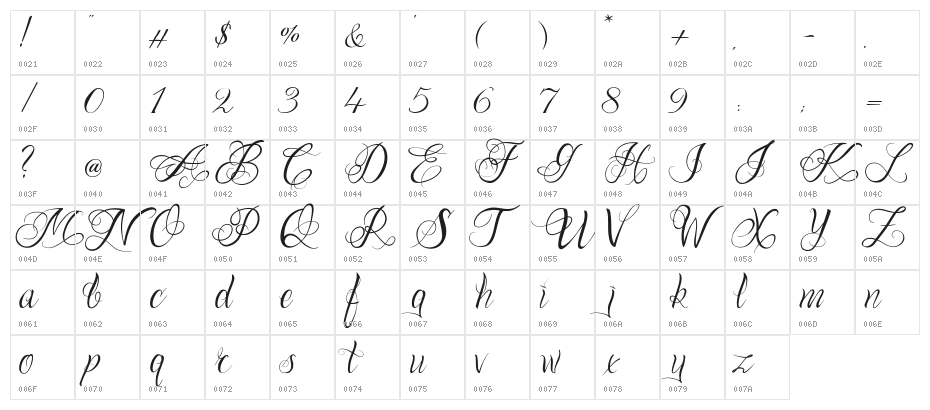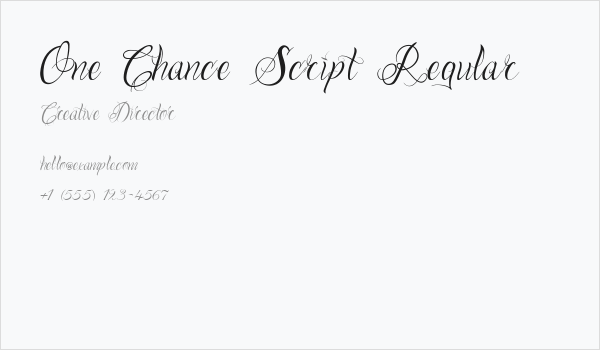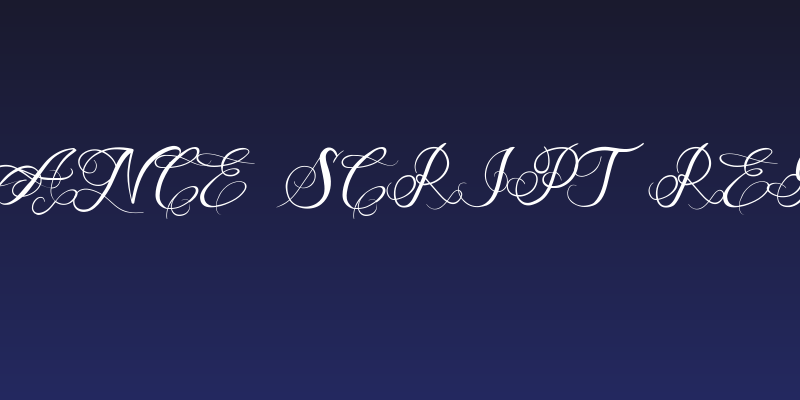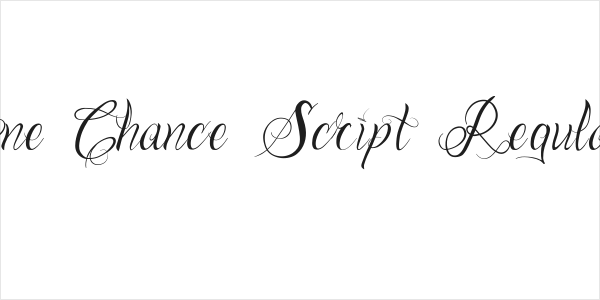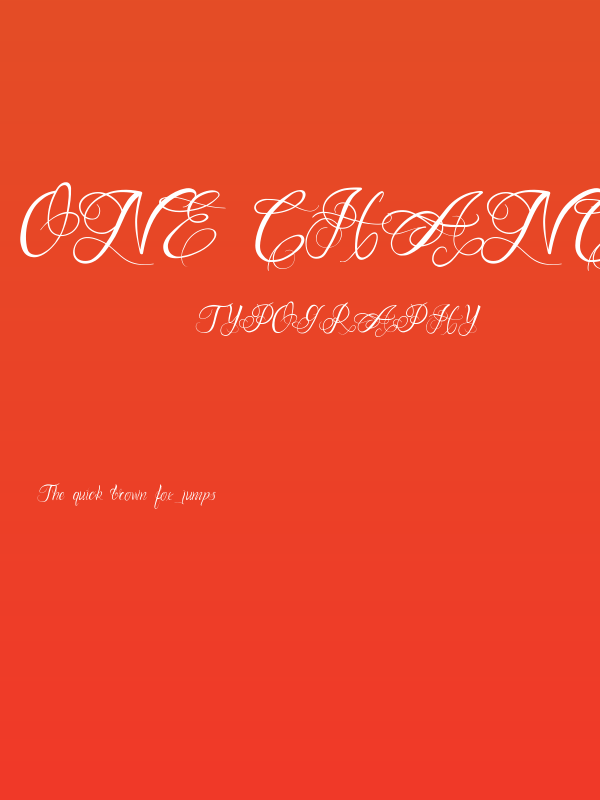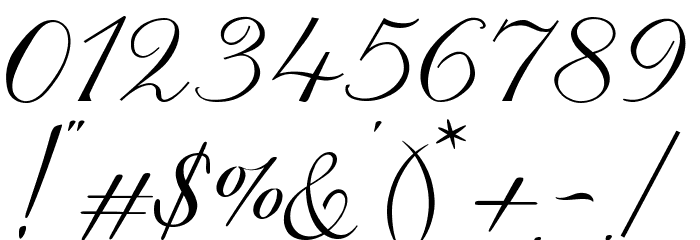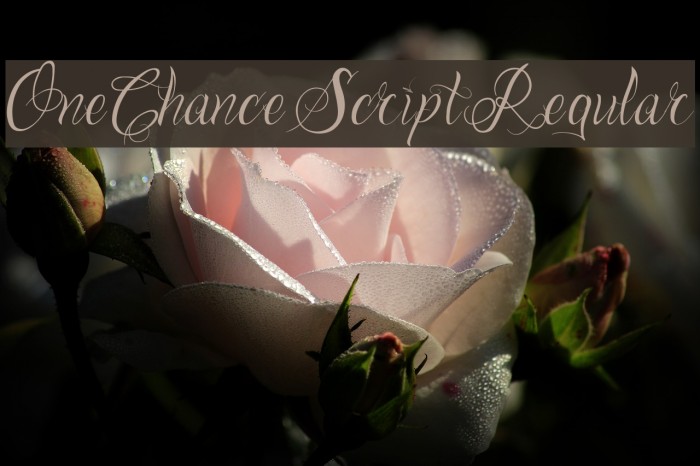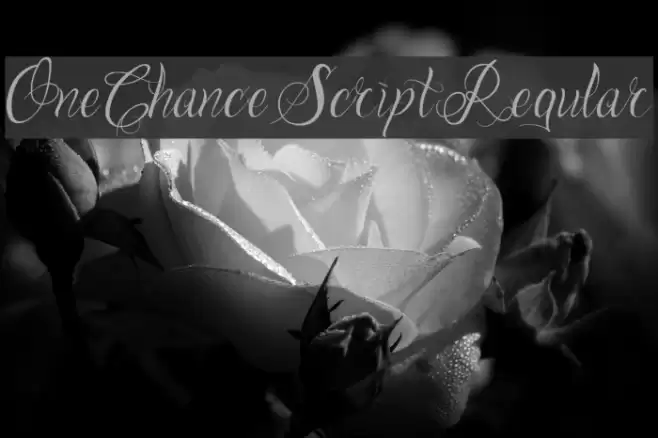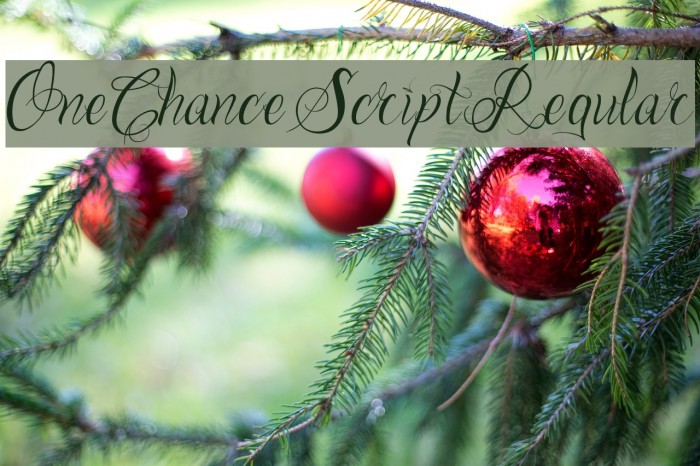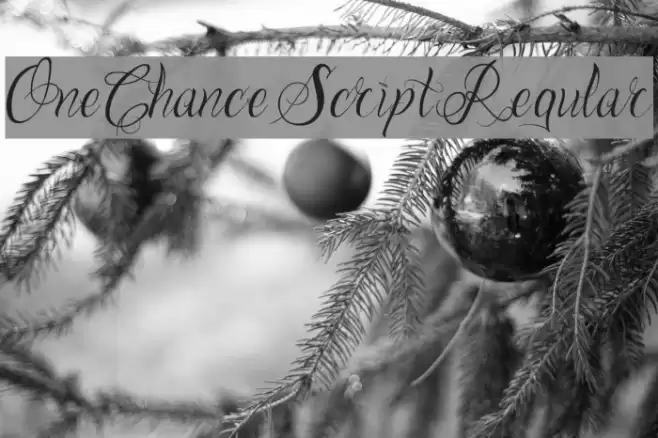
One Chance Script Regular Font
One Chance Script Regular Description
This elegant script font features intricate swirls and flourishes, giving it a sophisticated and ornate appearance. The uppercase letters are particularly decorative, with elaborate loops and curves that add a touch of luxury and refinement. The lowercase letters maintain a fluid and graceful style, complementing the uppercase with their smooth, flowing lines. The numerals and special characters are designed to match the overall aesthetic, ensuring consistency throughout. This font is perfect for projects that require a touch of elegance and sophistication, such as wedding invitations, formal event programs, or high-end branding.
| Use Case | Logos, Invitations, Decorative text |
| Proposed Projects | Ideal for wedding invitations, luxury branding, formal event programs, and elegant stationery. |